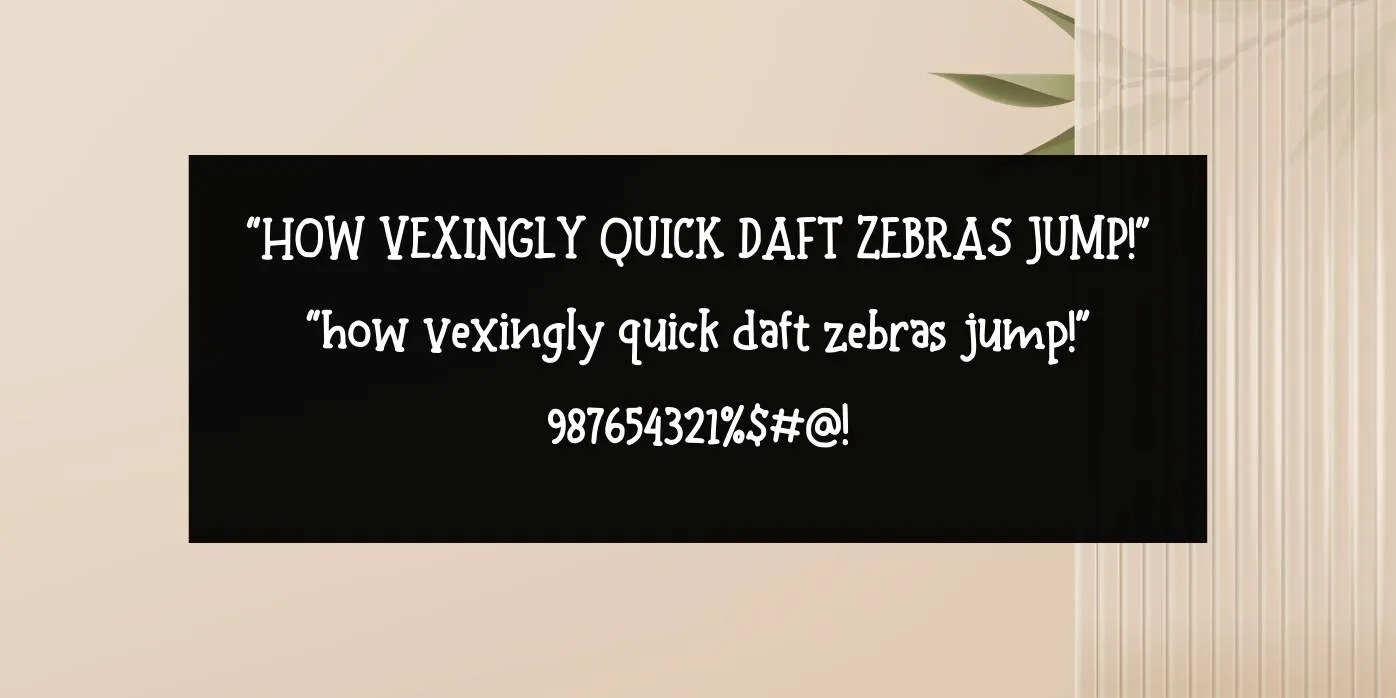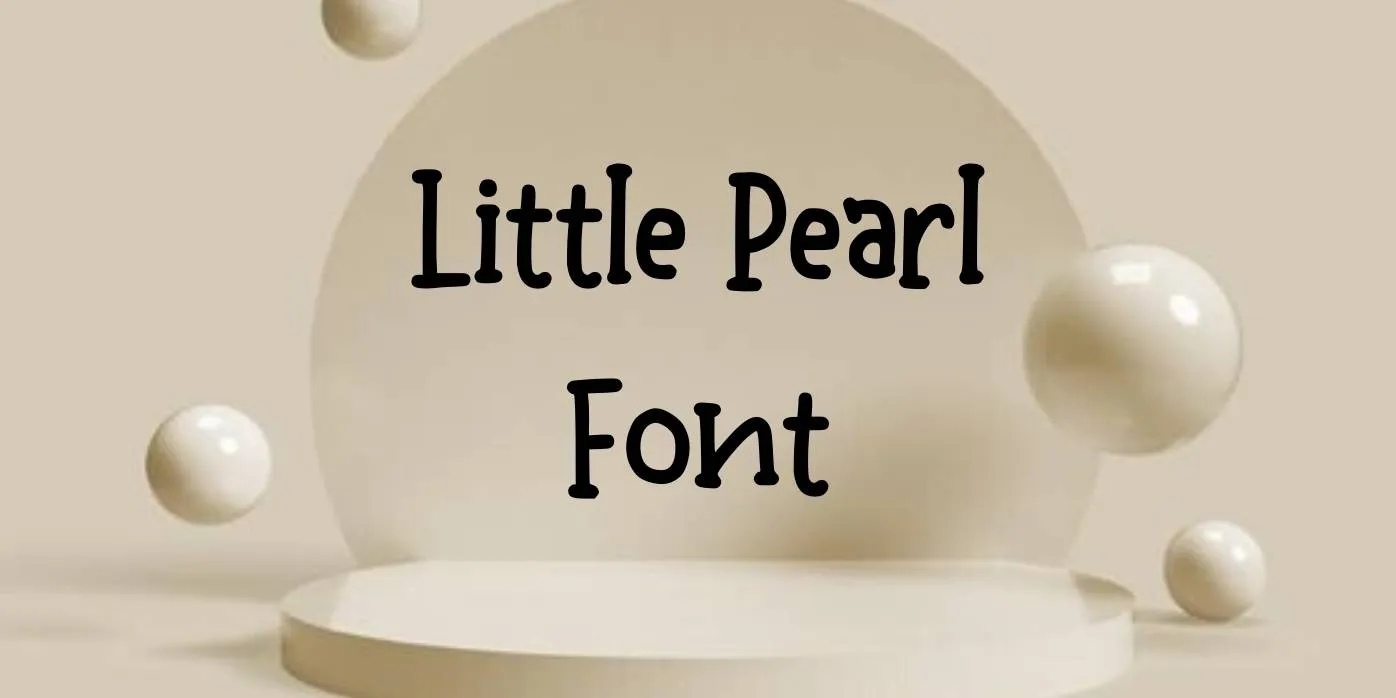
Little Pearl Font
The Little Pearl Font is a popular font used by many graphic designers. It has a very distinct look that makes it stand out from other fonts. The Little Pearl Typeface was created by John Hudson in 2004. The Little Pearl Typeface is named after the city of pearl, which is located in China.
The font was inspired by Chinese culture and its intricate designs. The Little Pearl Typeface has a very unique look that is very different from other Typeface. Moreover, you can also try forte font for your logos and other typography designs as well. It is also one of the only fonts that have an italic version.
It is also popular because it is one of the only fonts that have an italic version. The Little Pearl Typeface is a great choice for any project that needs a unique and distinct look.